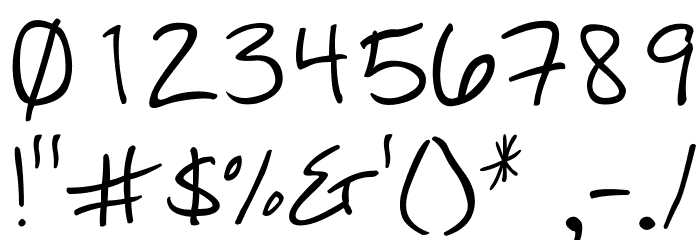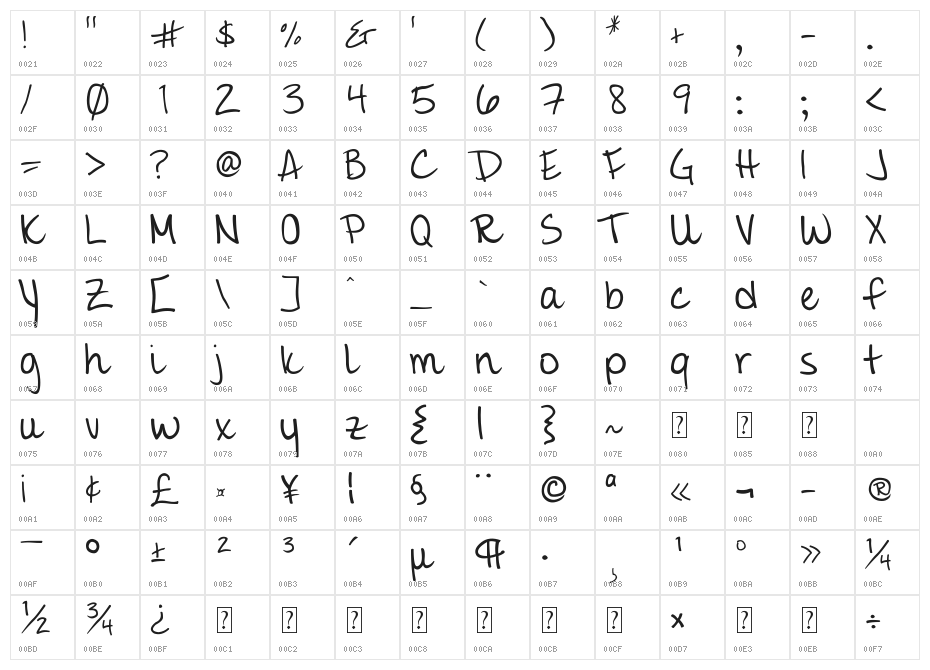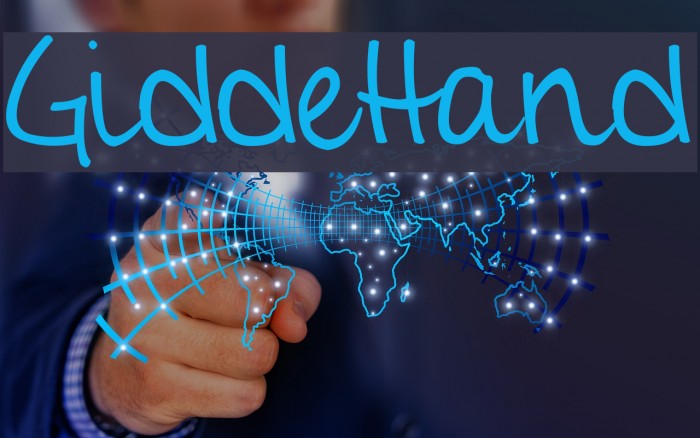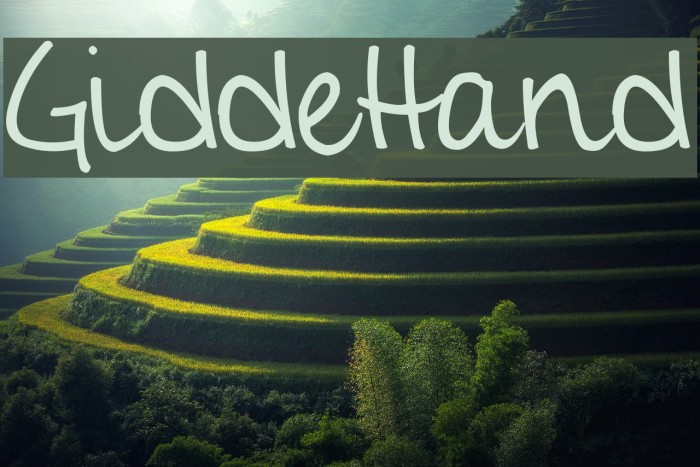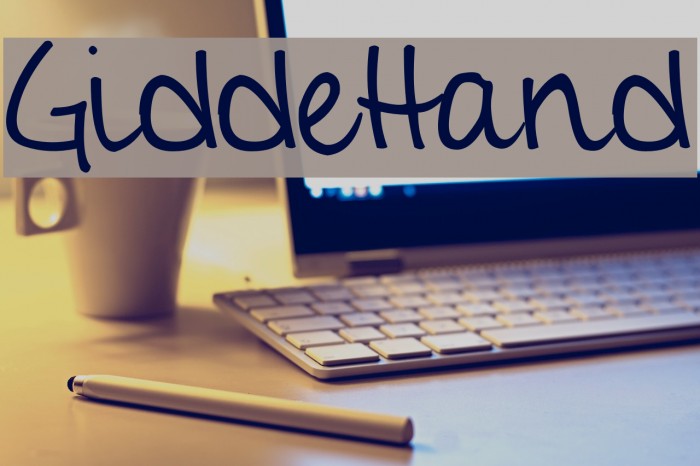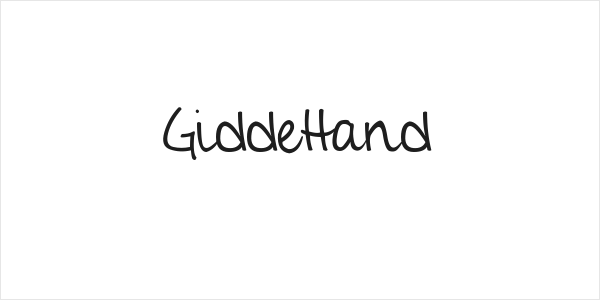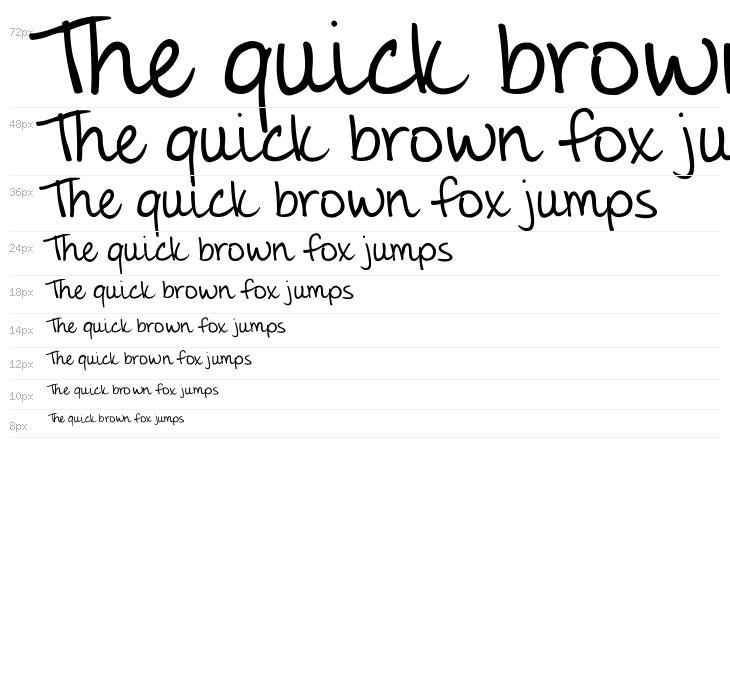
GiddeHand Font
GiddeHand Description
This font exudes a casual and friendly vibe with its handwritten style, characterized by smooth, flowing lines and a natural, organic feel. The letters are slightly slanted, adding to the informal aesthetic, while maintaining legibility. The strokes vary in thickness, providing a dynamic and lively appearance. This font captures the essence of personal handwriting, making it ideal for projects that require a personal touch. The characters are well-spaced, ensuring readability, and the overall design is both approachable and versatile.
| Use Case | Logos, Headlines, Informal text |
| Proposed Projects | Ideal for personal invitations, greeting cards, casual branding, and social media graphics. |